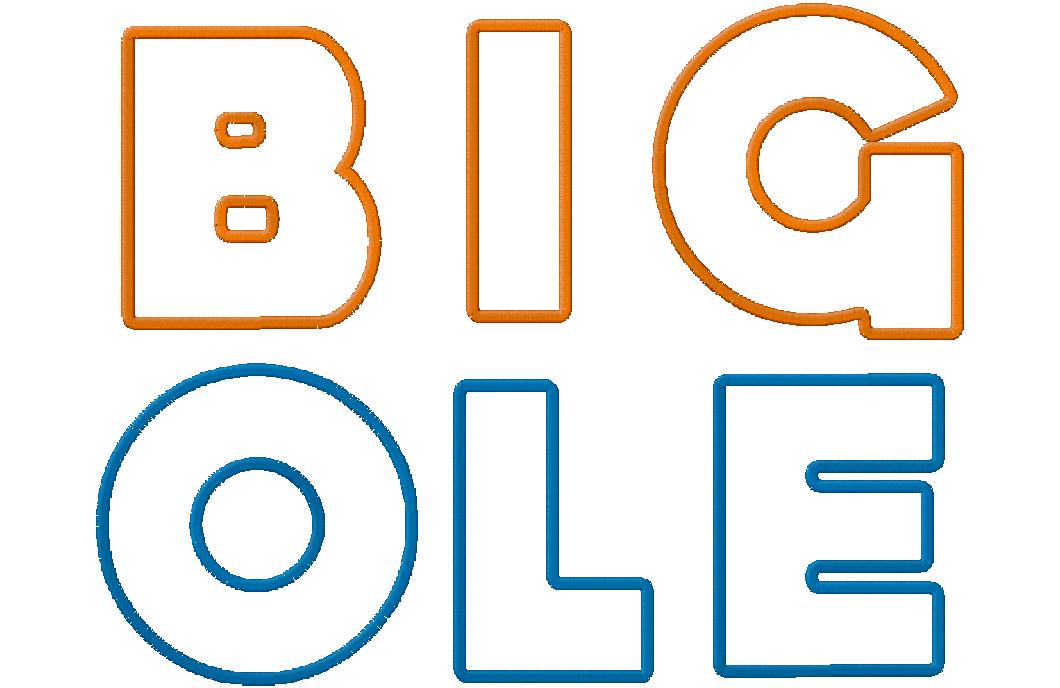
week. It has been a fantastic week and we thank everyone for joining us. Today's Free Embroidery font is a lovely and always useful large and opened applique design titled Big 'Ole Applique. The set includes all 26 capital letters of the alphabet and numbers 0 through 9. Perfect for monogramming! We have no doubt that you will agree this Free Embroidery Font is expertly digitized. Stitch it out on your machine and let us know. We will soon be launching a submit form to upload your work at FreeEmbroideryDesignFiles.com Please save photos of your designs to share your work. Also, if you like this free design share it on Facebook by clicking the Like button below. We appreciate your support.